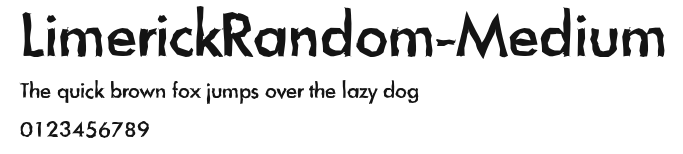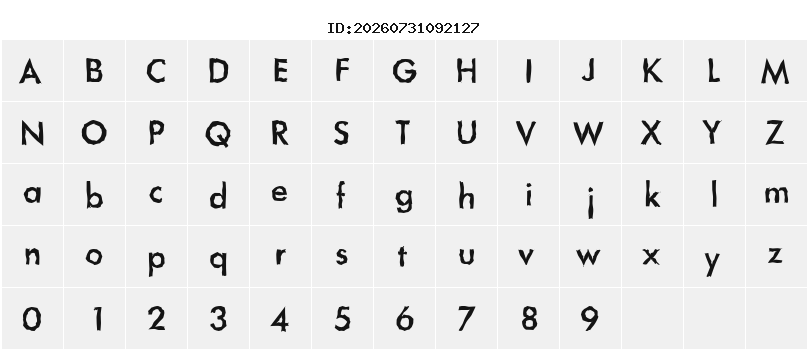
• Font Name: LimerickRandom-Medium
• Designer: SoftMaker Software GmbH
About LimerickRandom-Medium.ttf
LimerickRandom-Medium.ttf is a modern, elegant sans-serif font designed for ultimate readability and visual harmony. Perfect for branding, headlines, web design, and print materials.